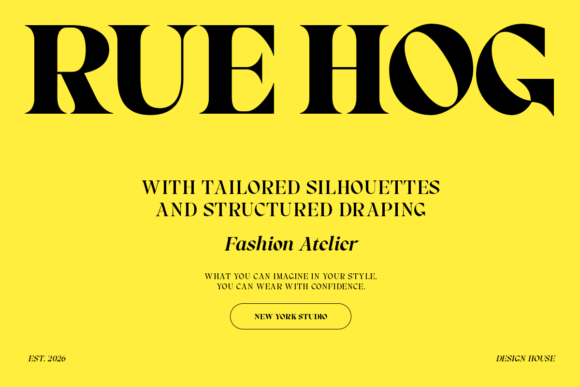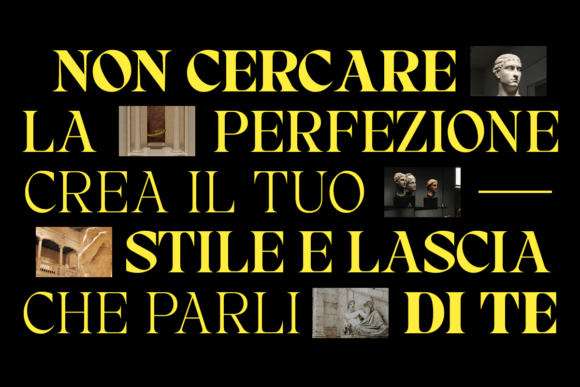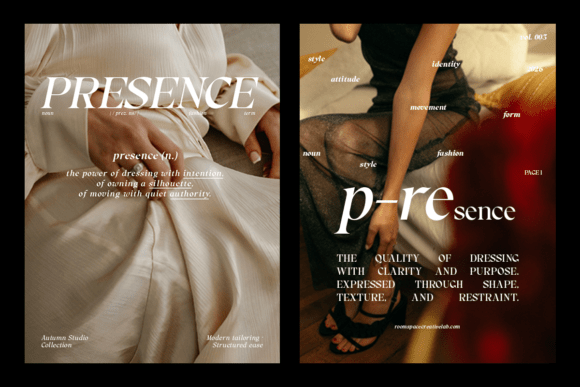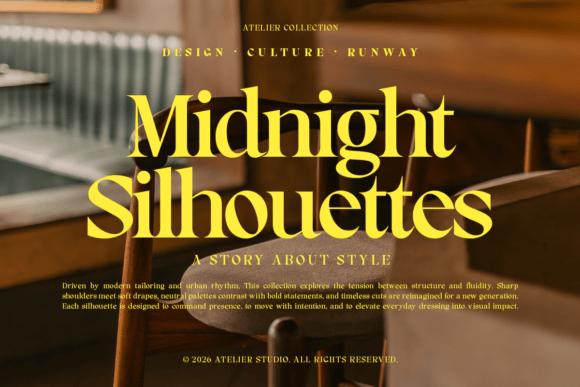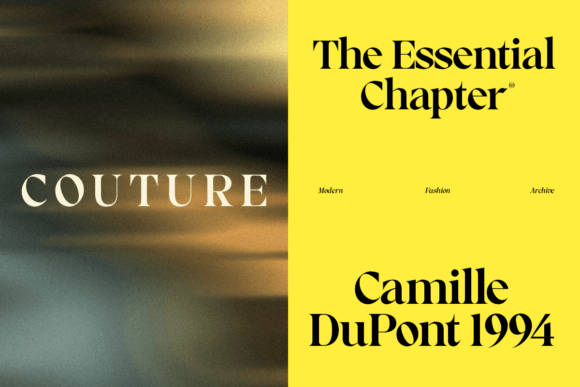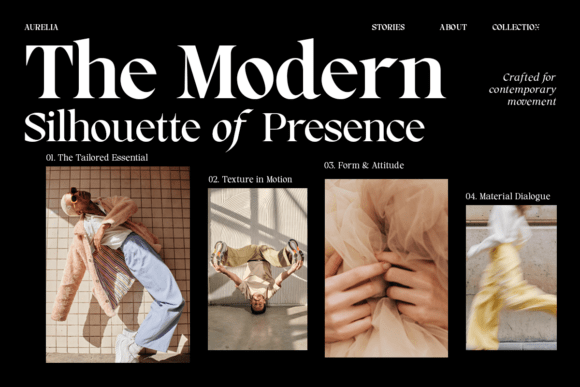
Introduction to Prime Serif Family Font
As designers, we’ve all been there – staring at a blank page, trying to convey the perfect message to our audience. The pressure to create something visually stunning and meaningful can be overwhelming. But what if you had the perfect tool to elevate your creative project and make your design truly shine? Enter the Prime Serif Family Font, a game-changing serif typeface that’s set to revolutionize the way you approach design.
With its elegant and sophisticated design, the Prime Serif Family Font is a high-quality resource that’s perfect for luxury brands, fashion editorials, magazines, and premium packaging design. Its 18 font weights ranging from Thin to Bold offer unparalleled flexibility, allowing you to create dramatic headlines and refined layouts with ease.
Key Features of Prime Serif Family Font
- High-quality font family suitable for a wide range of creative projects, including publishing, design, and digital media.
- Features a clean, elegant design with precise details, making it perfect for use in high-end creative projects.
Honest Review: Prime Serif Family Font
I’ve been experimenting with various fonts for my creative projects, and the Prime Serif Family Font has caught my attention. The high quality of this font is undeniable, making it a valuable design resource.
- ✨ Clean and elegant design aesthetic
- ✨ Wide range of weights and styles, perfect for various creative projects
- ⚠️ Limited language support, which may be a concern for international design projects
- ⚠️ May not be as versatile as other serif fonts in certain design contexts
Overall, the Prime Serif Family Font is a solid addition to any designer’s toolkit. While it may have some limitations, its high quality and wide range of styles make it a valuable resource for any creative project. I’d definitely recommend it to designers looking for a reliable serif font.
Prime Serif Family Font
The Prime Serif Family Font is ideal for creative projects, such as branding, marketing materials, and editorial design.